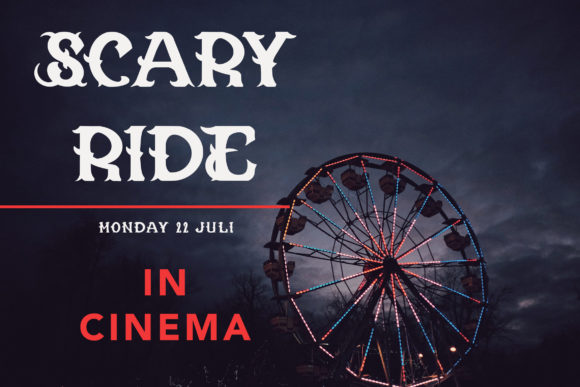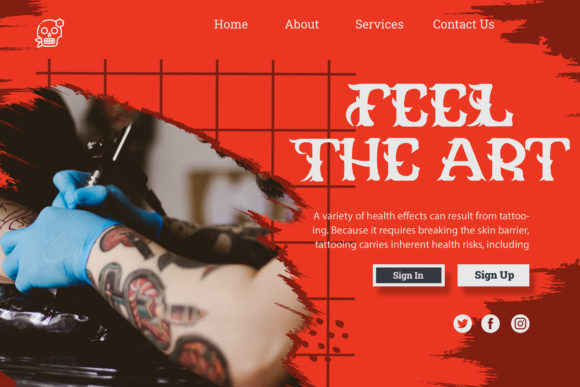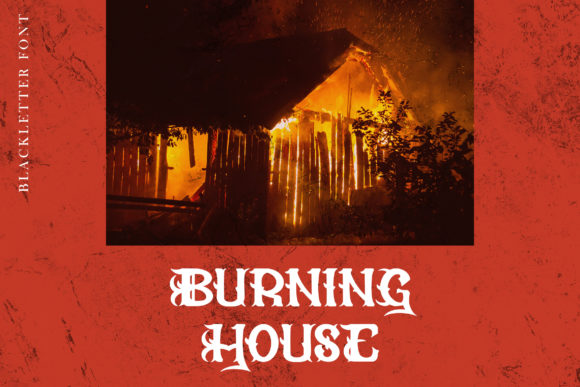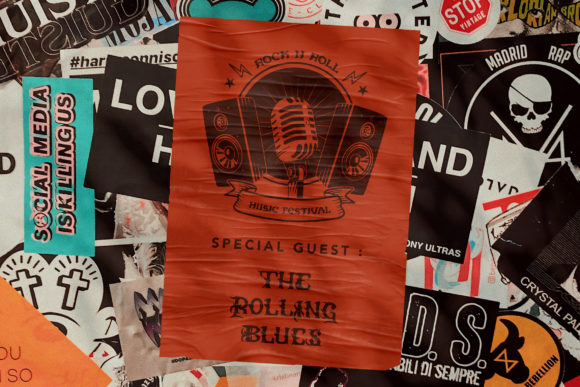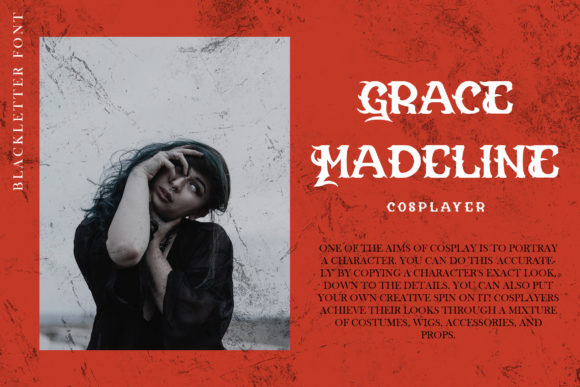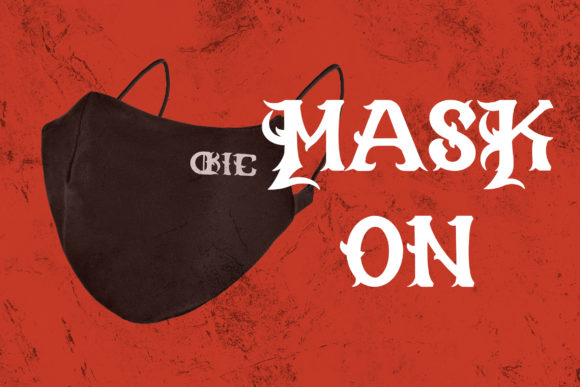
Unleash the Danger: Exploring the Biohazard Font
Are you a designer or crafter looking for a font that exudes boldness and uniqueness? Look no further than the Biohazard font. This distinct and bold blackletter font is making waves in the design community, and for good reason. In this article, we’ll dive into the details of the Biohazard font, its features, and why it’s a must-have for any creative project.
What is the Biohazard Font?
The Biohazard font is a sleek and modern blackletter font that is sure to turn heads. Its bold and edgy design makes it perfect for projects that require a touch of danger and sophistication. Whether you’re working on a logo, a poster, or a craft project, this font is sure to make a statement.
Key Features of the Biohazard Font
So, what sets the Biohazard font apart from other fonts out there? Here are some of its key features:
- Distinct and Bold Design: The Biohazard font boasts a unique and bold design that is sure to grab attention.
- Highly Detailed: This font is meticulously crafted, with intricate details that make it stand out from other fonts.
Why Designers and Crafters Love the Biohazard Font
So, why are designers and crafters raving about the Biohazard font? Here are just a few reasons:
- Versatility: The Biohazard font can be used for a wide range of projects, from logos and posters to craft projects and more.
- Unique Design: This font’s bold and edgy design makes it perfect for projects that require a touch of sophistication and danger.
How to Use the Biohazard Font in Your Projects
- Experiment with Different Sizes: The Biohazard font looks great in a variety of sizes, from small and subtle to large and bold.
- Pair it with Other Fonts: Try pairing the Biohazard font with other fonts to create a unique and eye-catching combination.
In conclusion, the Biohazard font is a must-have for any designer or crafter looking to add a touch of boldness and uniqueness to their projects. With its distinct and bold design, highly detailed craftsmanship, and PUA encoding, this font is sure to make a statement. Whether you’re working on a logo, poster, or craft project, the Biohazard font is the perfect choice for those who dare to be different.